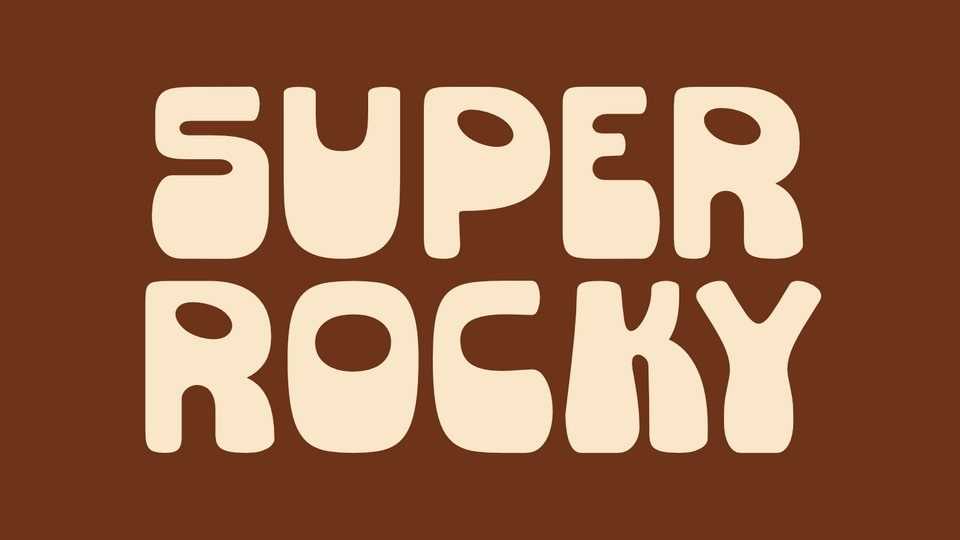
Download Super Rocky font, a display typeface that brings back the funky, bold aesthetics of retro design. The strong, eye-catching Super Rocky font is infused with the spirit of disco dance floors and vibrant colors.